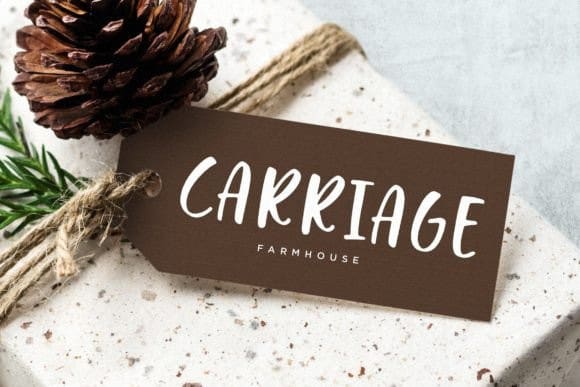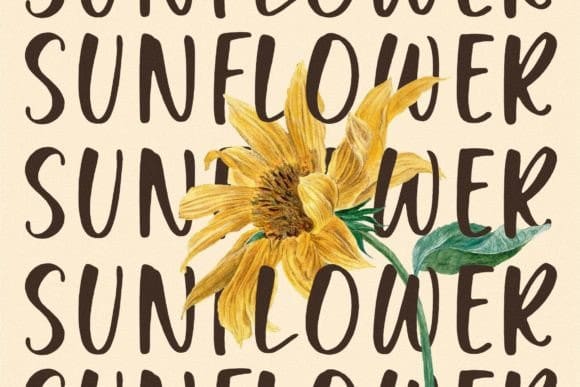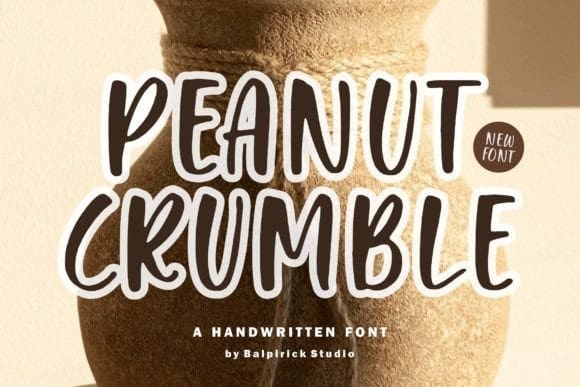
Peanut Crumble Font
Peanut Crumble Font is an attractive and quirky handwritten font. Its playful, rounded letters and unconventional character designs create a sense of fun and individuality that is perfect for adding personality to your branding or stationery. With its charming and distinctive style, this font is sure to capture attention and leave a lasting impression.